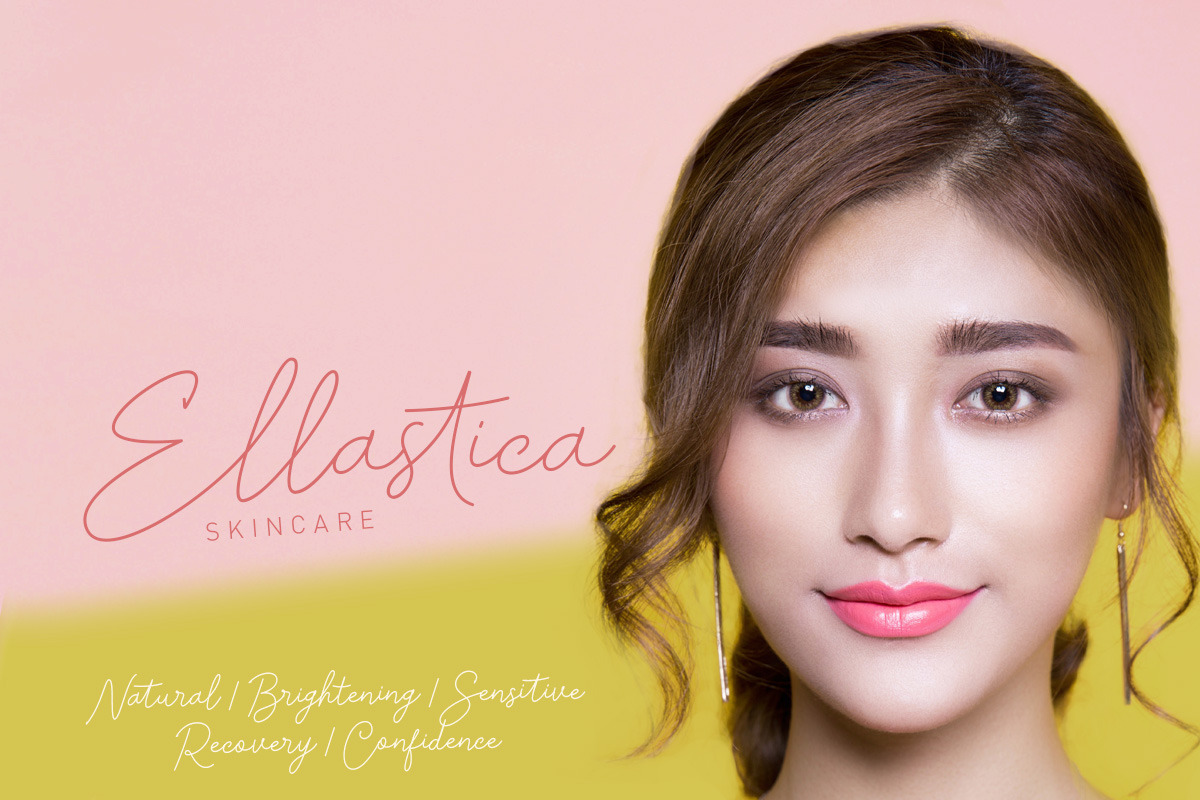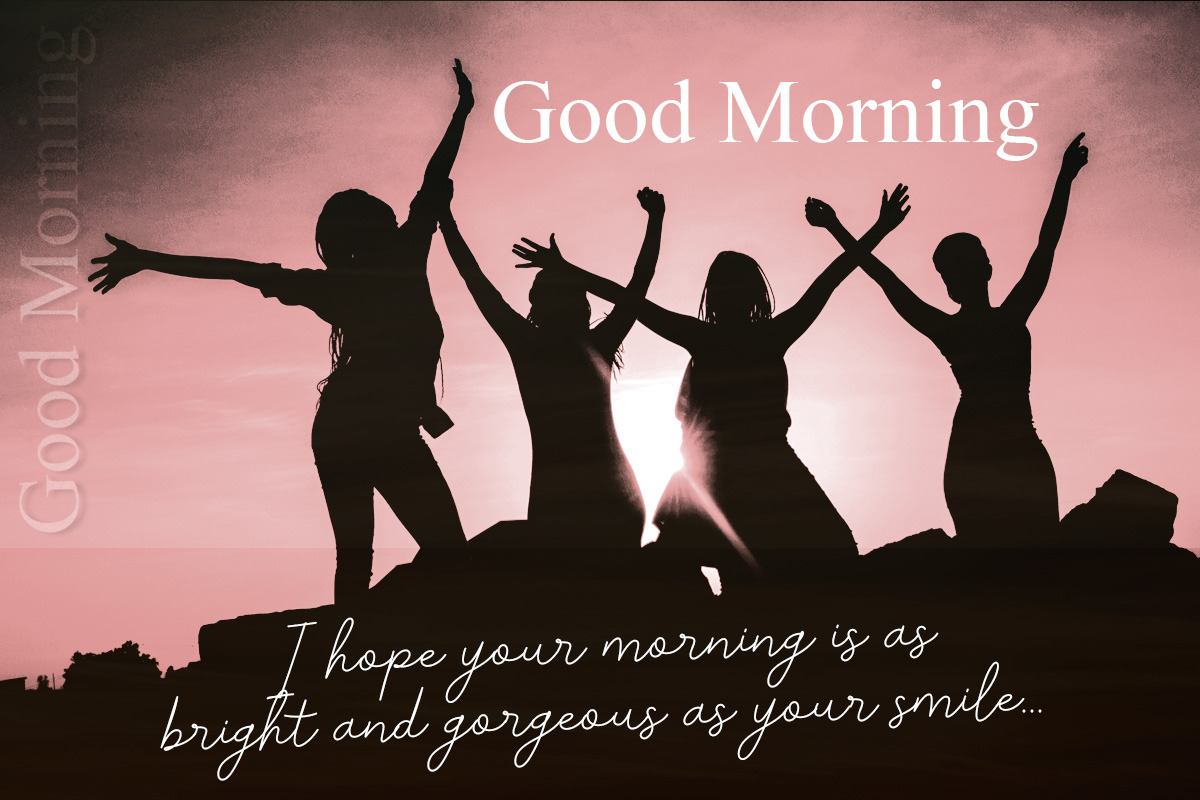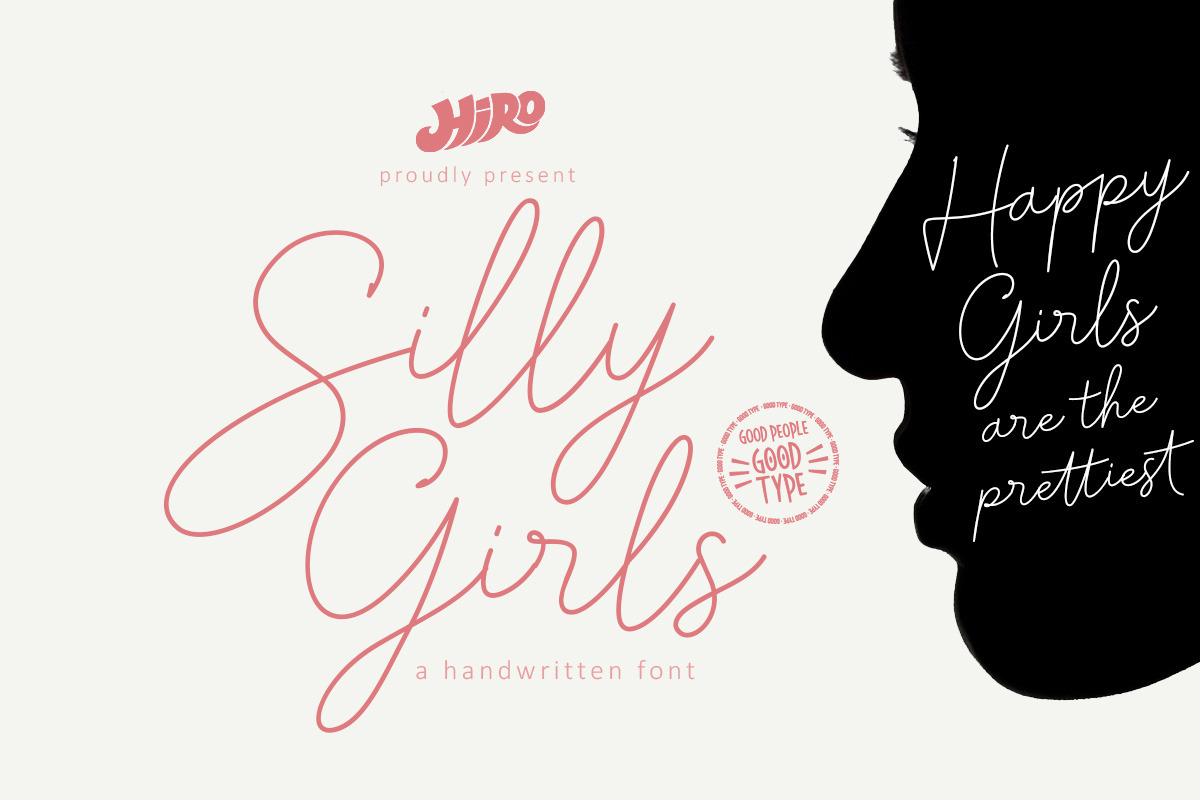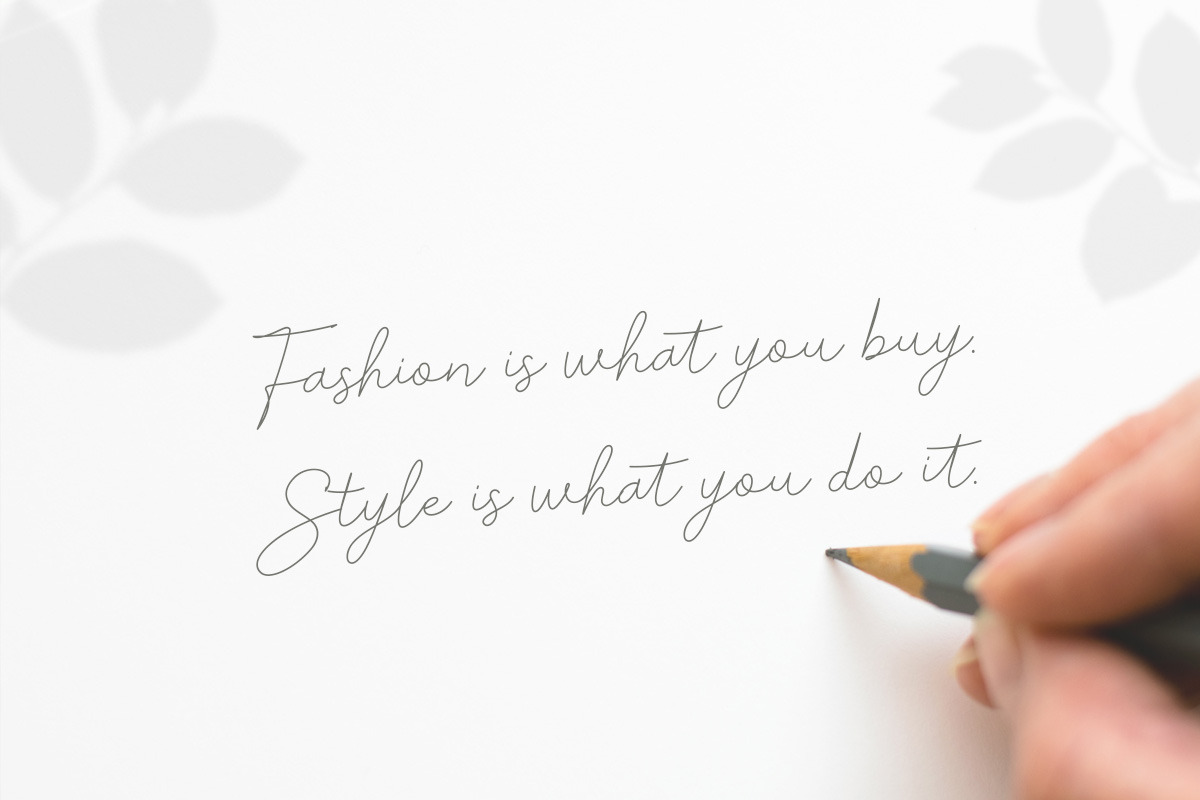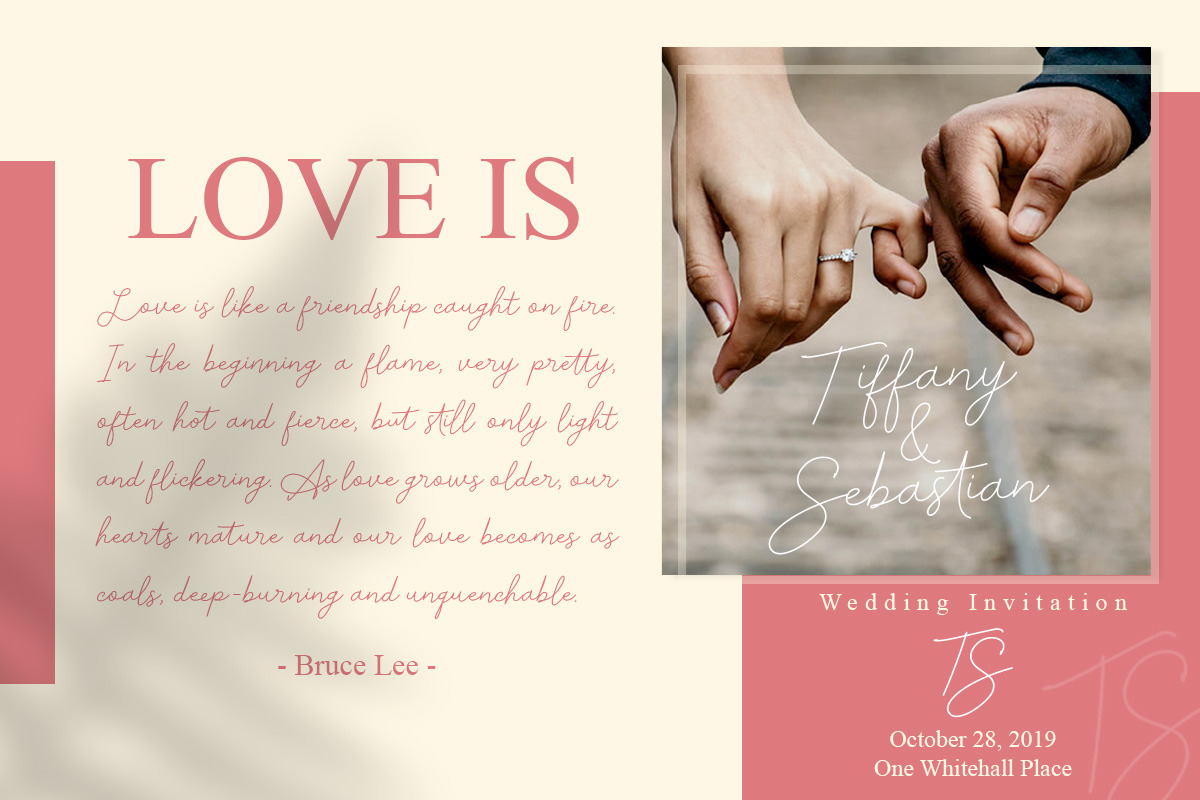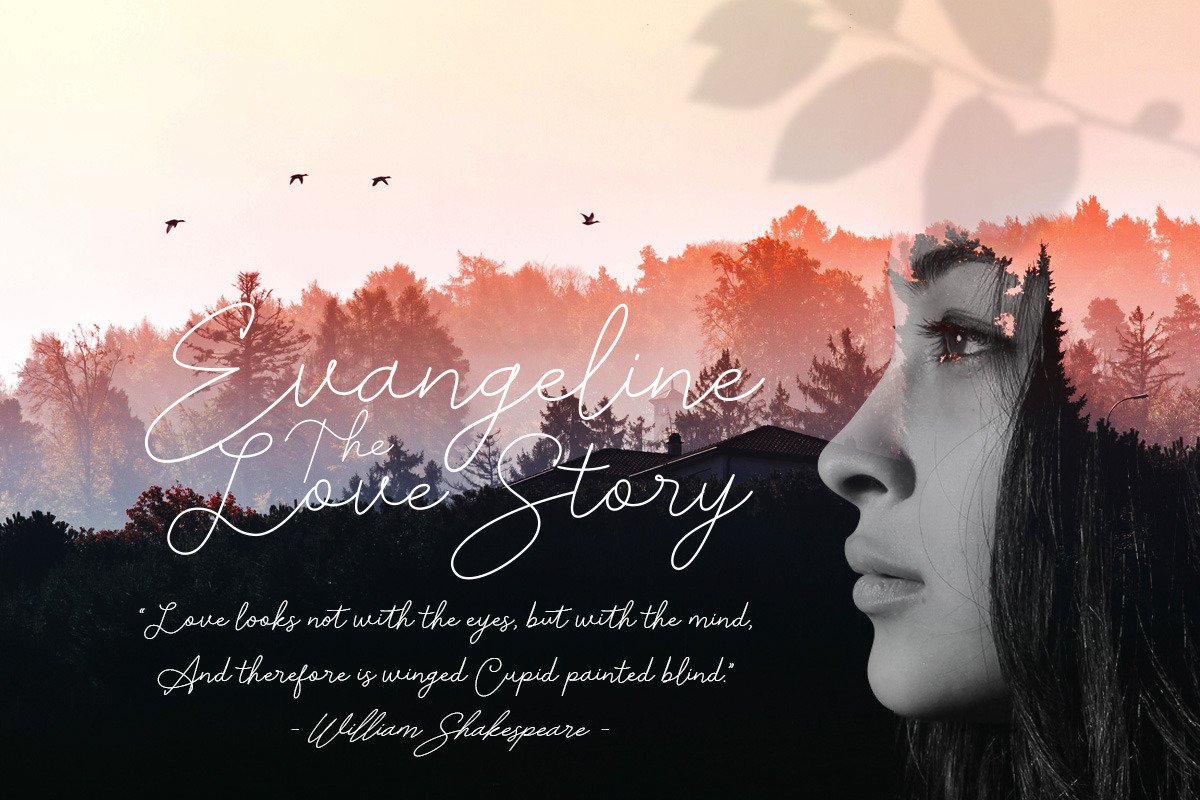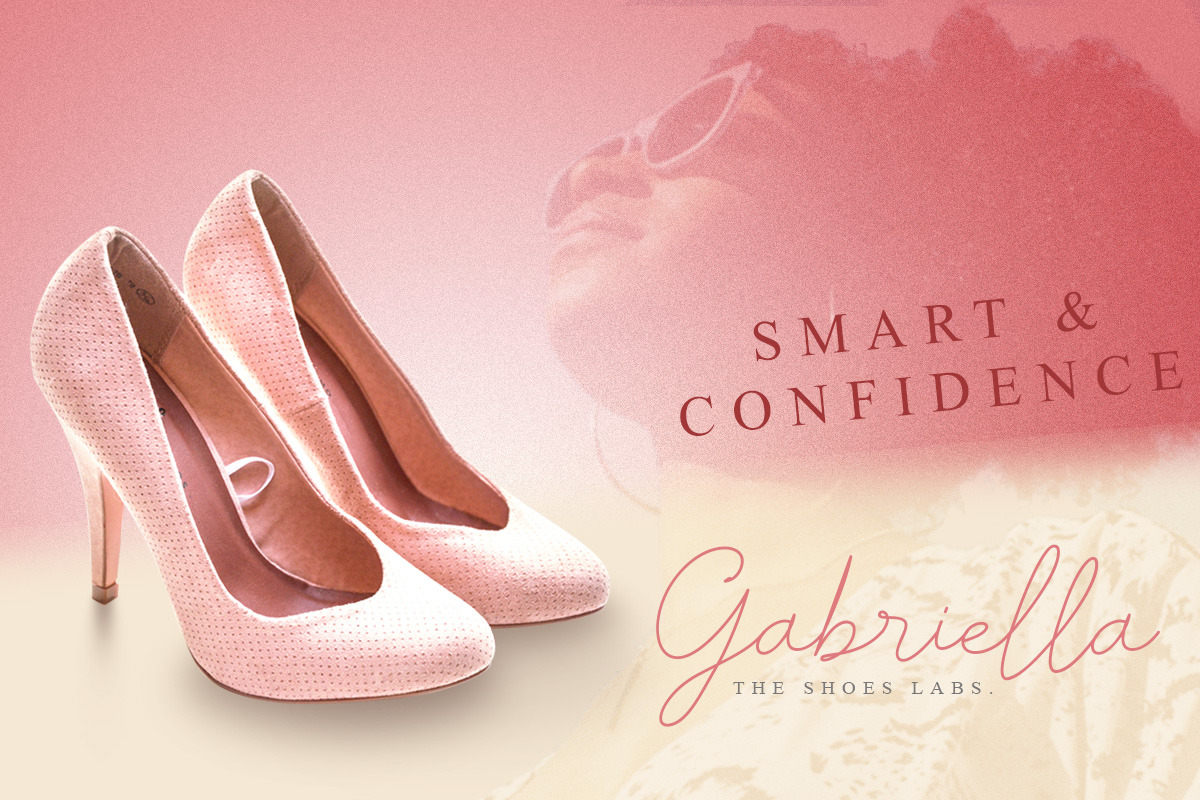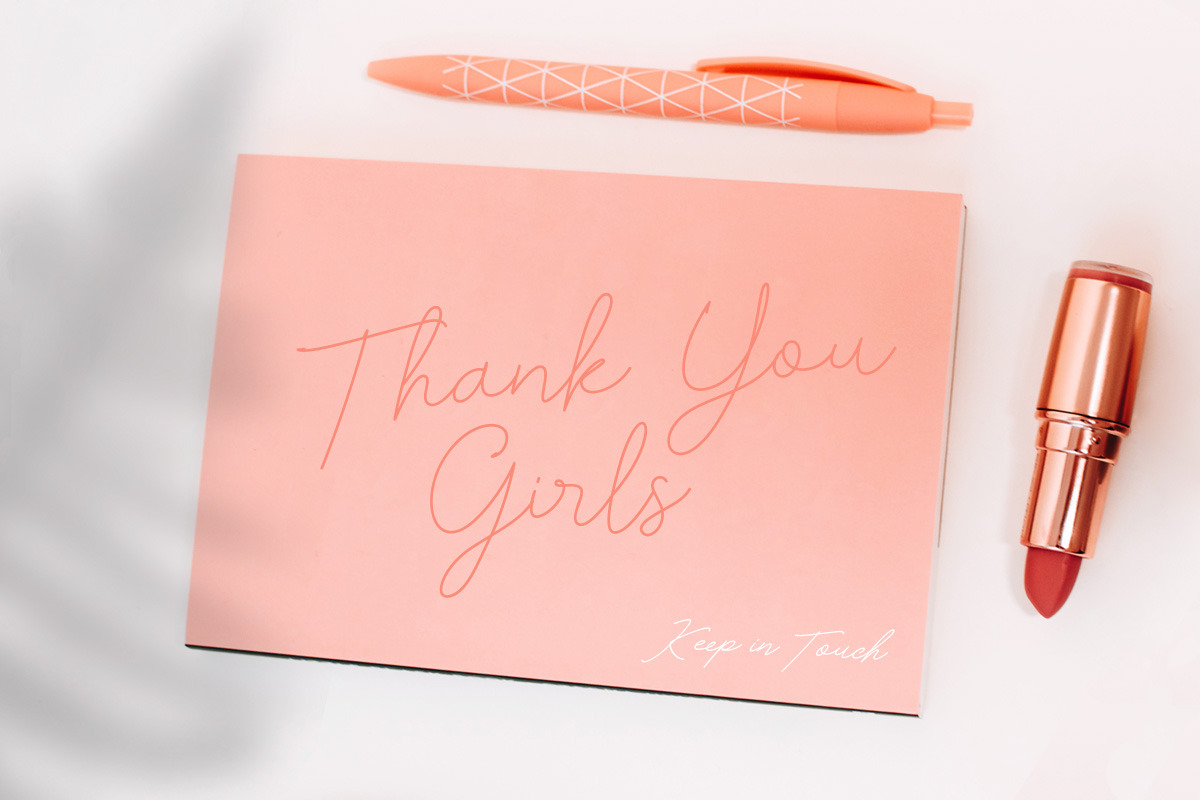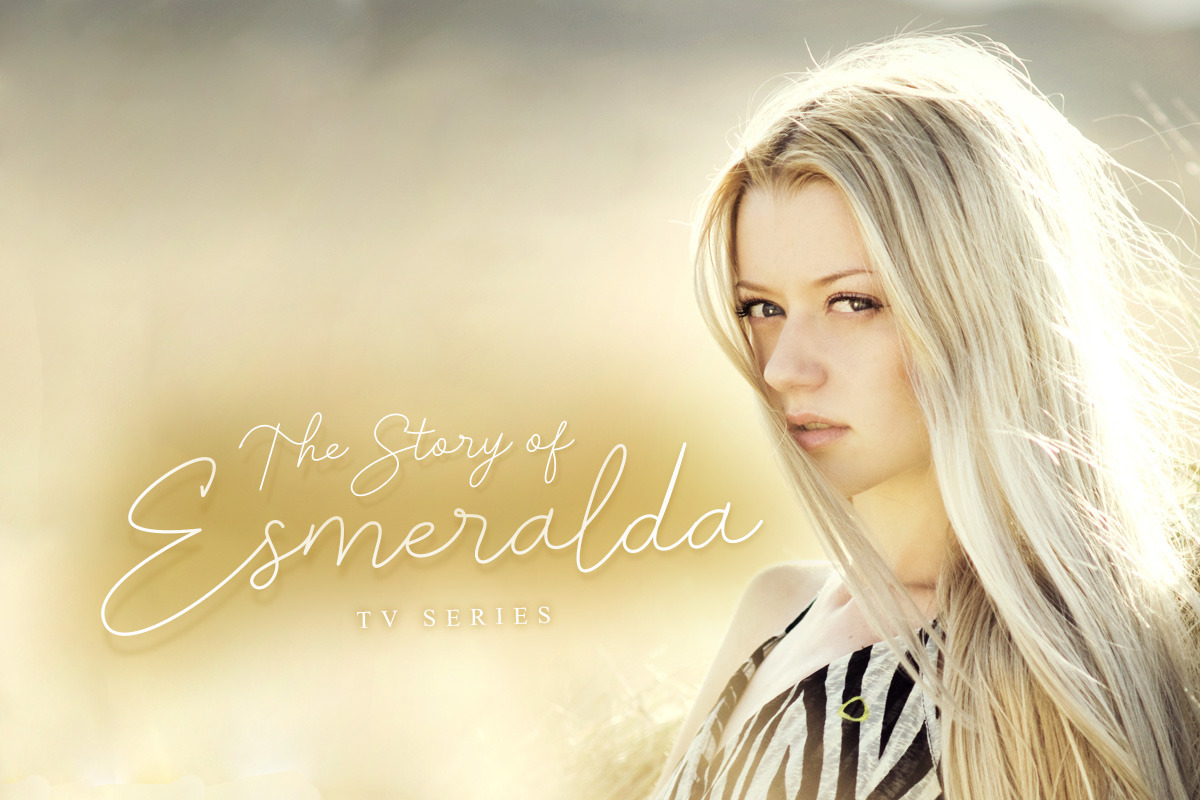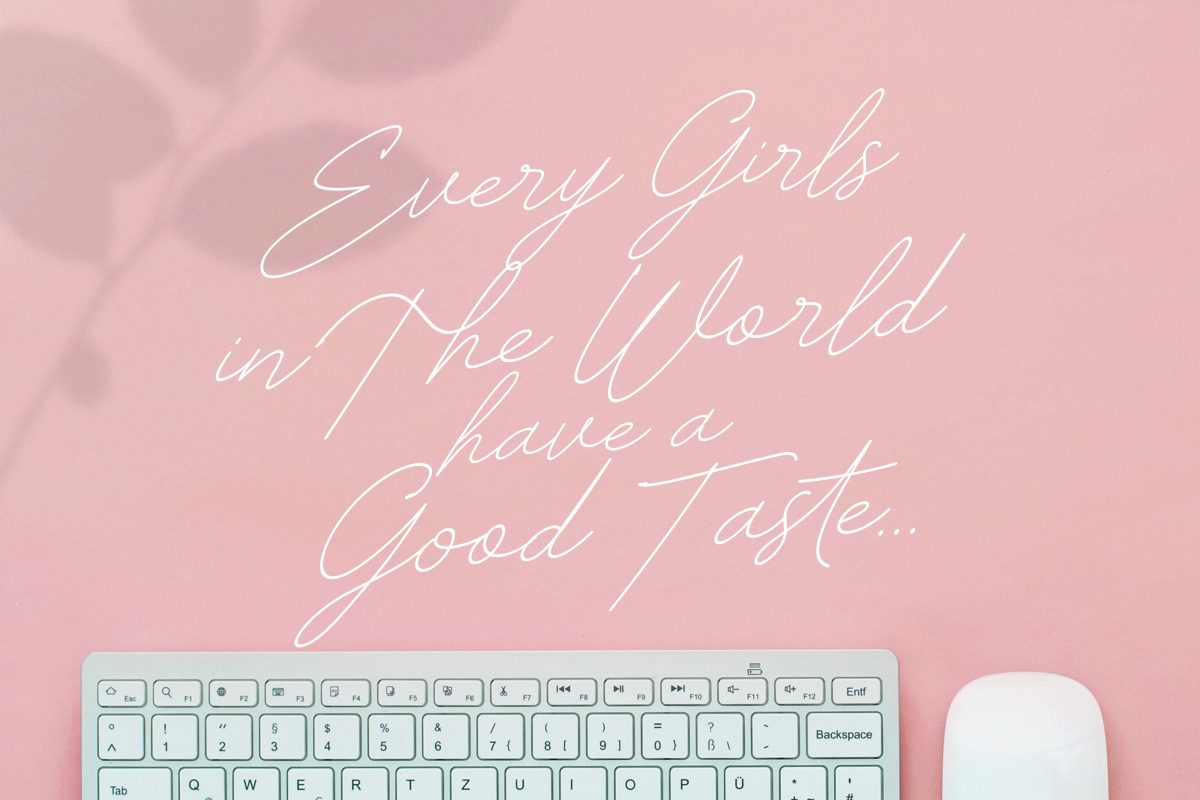
Silly Girls - Handwritten Font
Silly Girls is a Monoline font.
This font describes about girly, feminist, dynamic, easy to use and will bring a good harmony when the letters are connected and paired each other.
- Support Opentype Features
- Support Ligatures bb dd ee ff gg kk ll mm nn oo pp rr ss tt st at att et ett it itt ot ott ut utt yt gt lt rt The
USE Silly Girls works great in any branding, logos, magazines, wedding designs, social media posts, quotes, invitation, stationery, craft and any projects that need monoline handwriting taste.